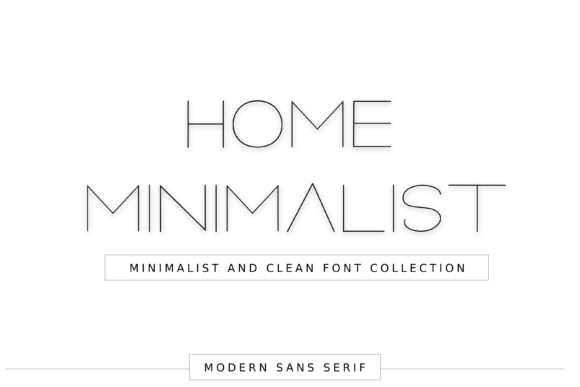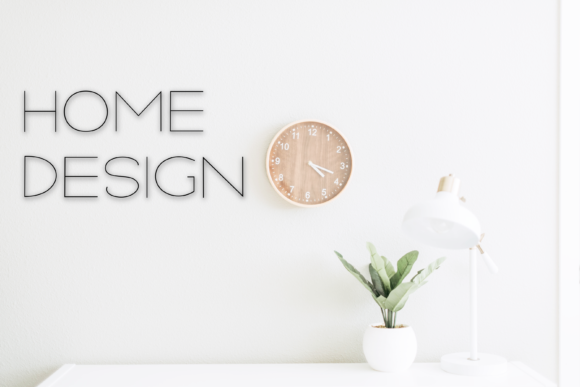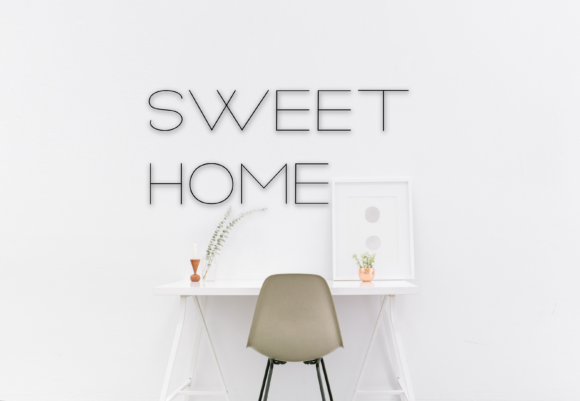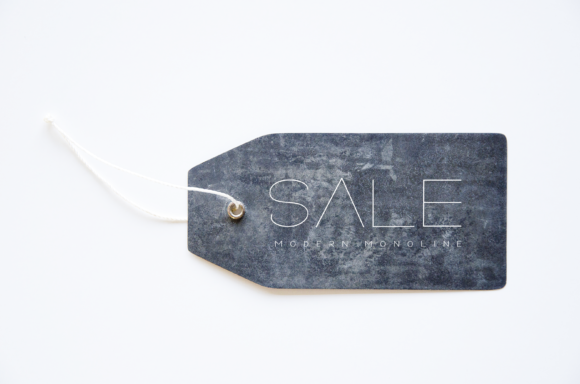
Home Minimalist Font
About the Home Minimalist Font
We are excited to introduce Home Minimalist Font, a must-have typeface for any serious designer. Home Minimalist is a simple and thin lettered sans serif font. It can easily be matched to an incredibly large set of projects, so add it to your creative ideas and notice how it makes them stand out!
Its clean lines and delicate weight make it ideal for short headlines, logos, and minimalist branding projects where subtle elegance is key. It shines in applications like website headers, app icons, and short-form packaging designs. However, its thin strokes make it unsuitable for body text or long paragraphs; readability suffers at smaller sizes.
Home Minimalist’s personality is understated yet sophisticated. It projects a modern and minimalist aesthetic. To complement this, consider pairing it with a warmer serif like Playfair Display for a touch of classic elegance, or a geometric sans-serif like Montserrat for a contemporary, balanced feel.
Avoid pairing it with overly decorative or playful fonts, as this would clash with its refined simplicity. A strong, neutral sans-serif like Lato could also provide effective contrast and support for larger text blocks where Home Minimalist is unsuitable.
Home Minimalist Font Usage Examples
Home Minimalist Font Example